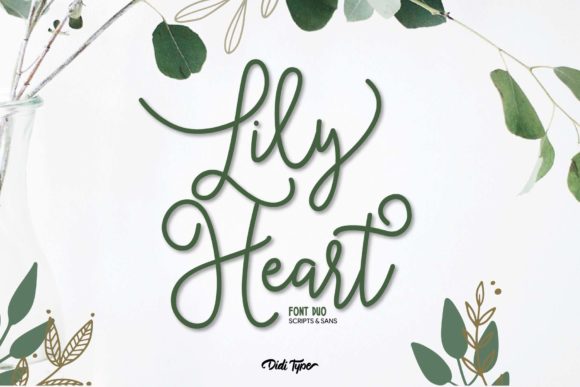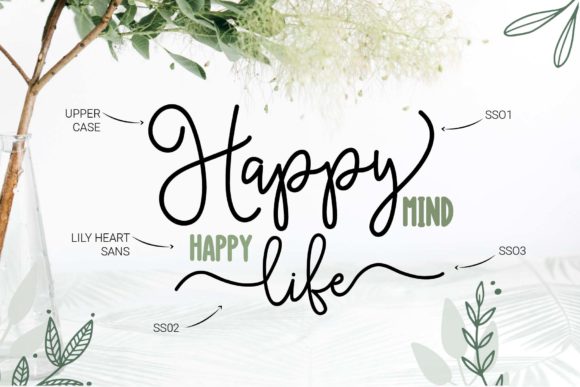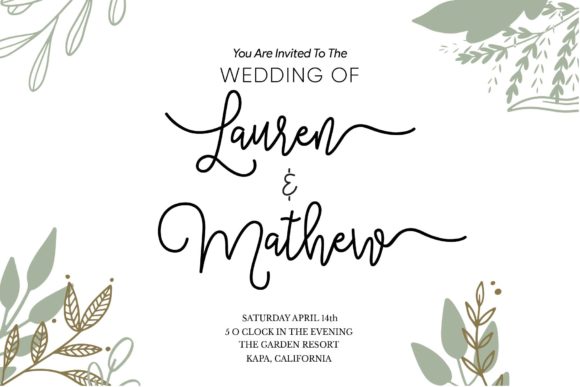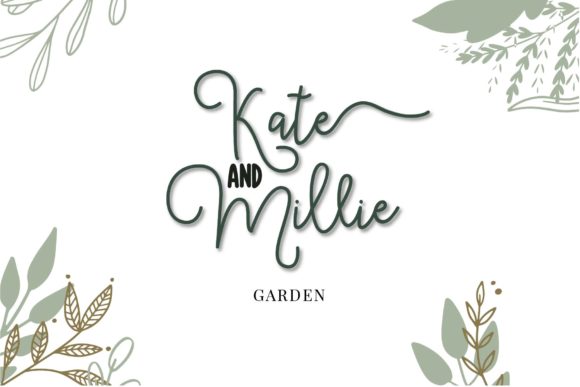
About Lily Heart Font
Lily Heart is a beautiful, delicate and incredibly versatile duo font (sans serif and script). Incredibly unique, this font fits a wide pool of designs, elevating them to the highest levels. Add this font to your favorite creative ideas and notice how it makes them come alive!